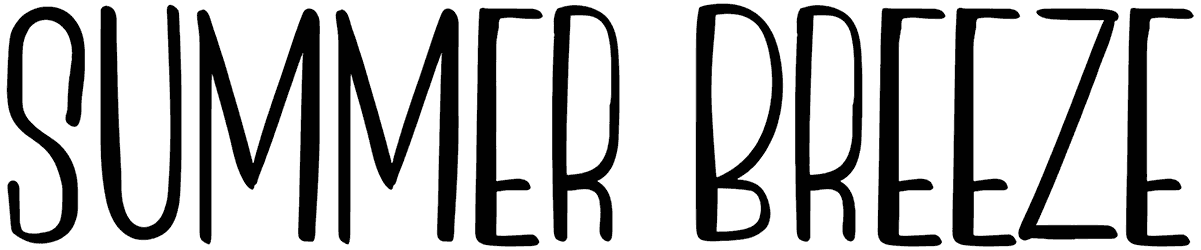
Summer Breeze Font
Summer Breeze font, in all of its simplicity, has a little bit of a casual vibe and can do a minimal makeover to your texts. This long font has a pen-written design on its long characters.